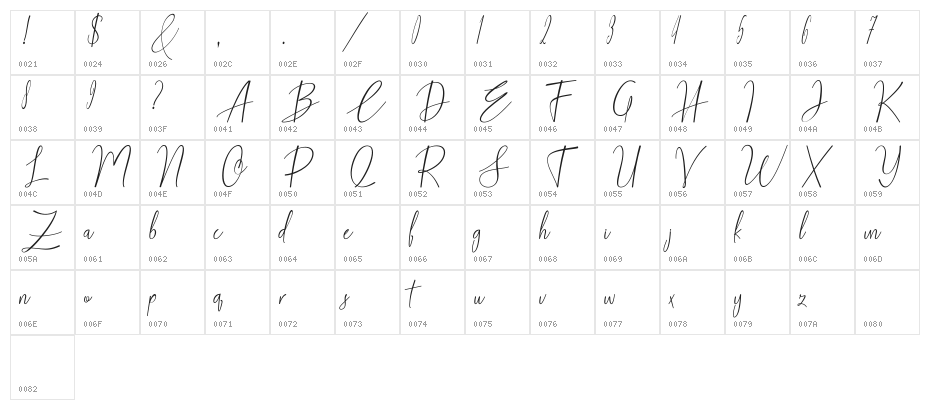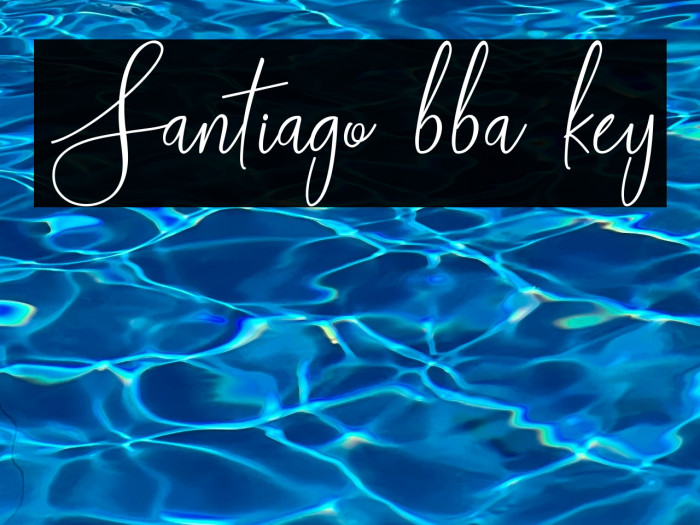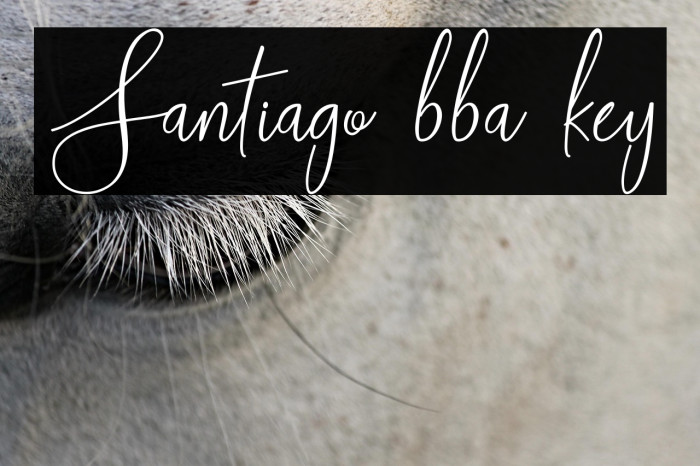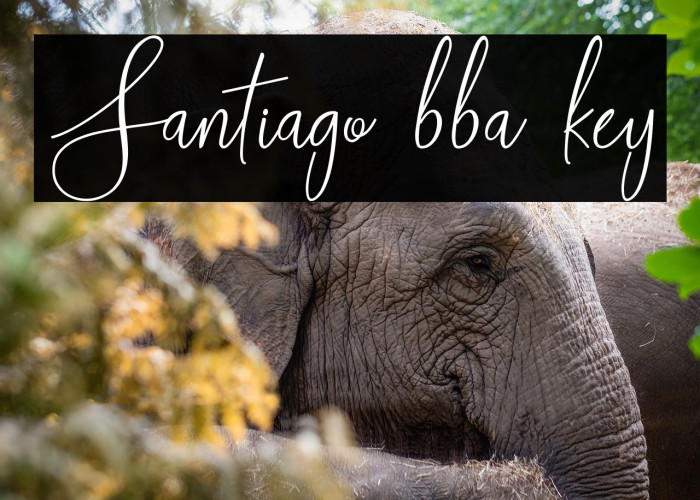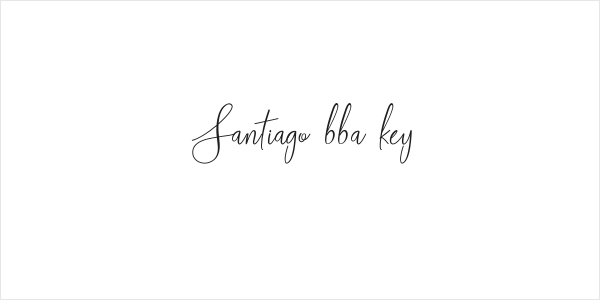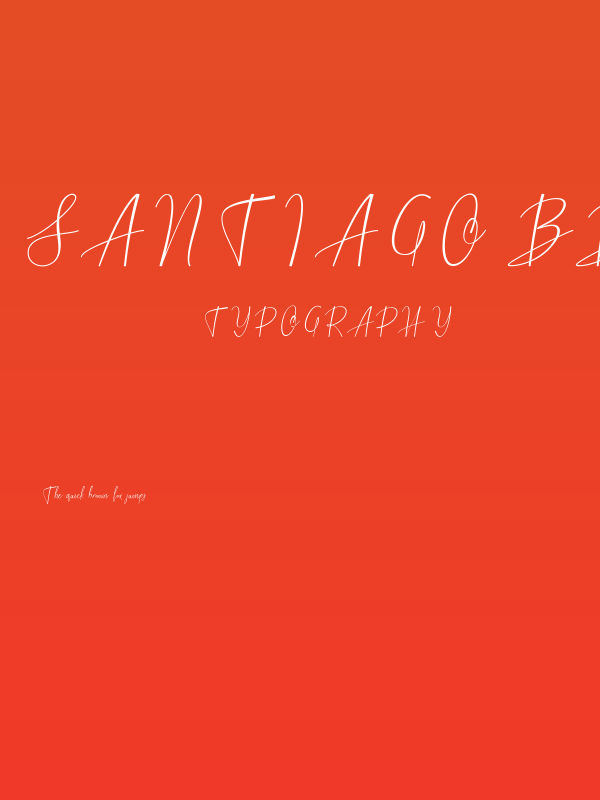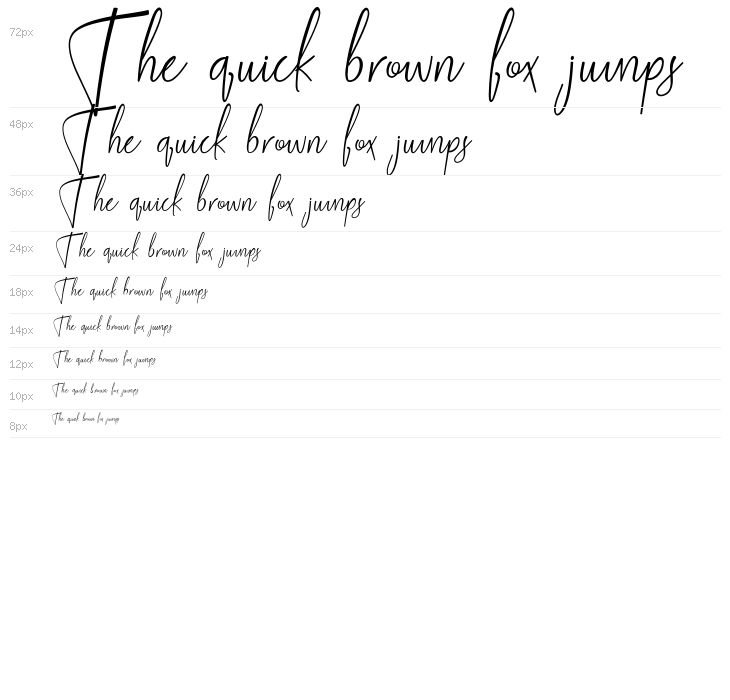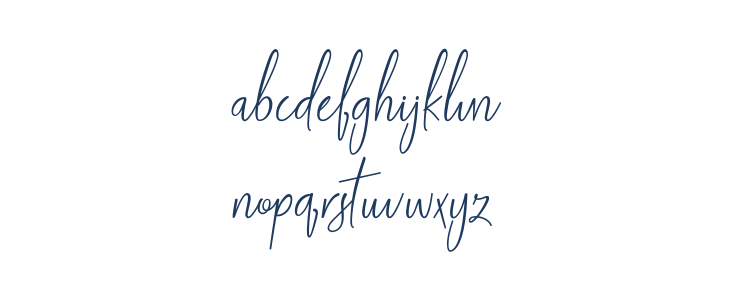
Santiago bba key Font
Santiago bba key Description
This elegant script font features a flowing, handwritten style with a modern twist. The uppercase letters are tall and slender, with graceful curves and loops that give them a sophisticated appearance. The lowercase letters maintain a consistent flow, enhancing the font's overall fluidity. Numbers and special characters are designed with the same attention to detail, ensuring a cohesive look across all elements. The font's delicate lines and smooth transitions make it ideal for projects that require a touch of elegance and personal flair.
| Proposed Projects | Ideal for wedding invitations, greeting cards, branding, and elegant logo designs. |